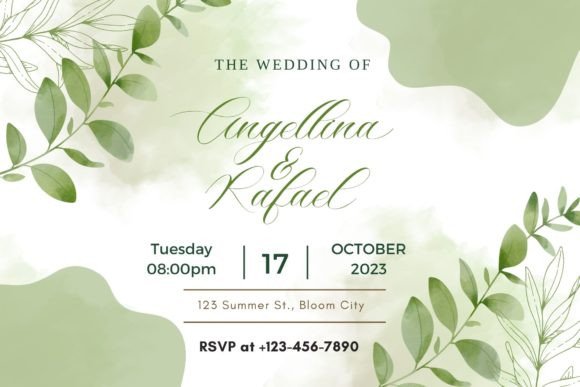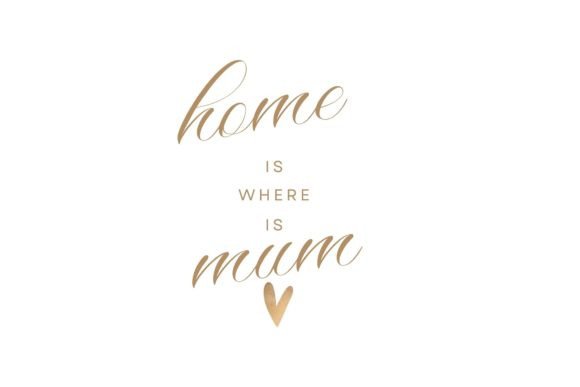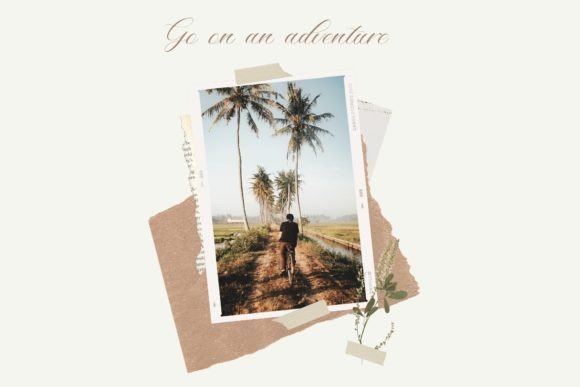
Introduction to Dellafonts Font
Dellafonts is an exquisite handwritten font, masterfully designed to become a true favorite.
Key Features of Dellafonts Font
Why Choose Dellafonts Font?
Dellafonts Font offers exceptional quality and versatility, making it a valuable addition to your design toolkit. Whether you’re creating for personal projects or commercial use, Dellafonts Font delivers professional results.